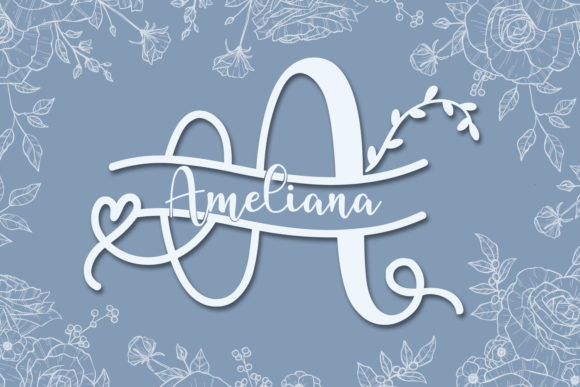
Unleash the Allure of Ameliana Monogram: A Font Symphony for Love and Beauty
In the realm of typography, where words dance upon the digital canvas, there exists a font that embodies the essence of love and beauty, capturing hearts with its charming strokes and delicate allure - Ameliana Monogram. Step into a world of elegance and grace, where this decorative font paints a picture of romance and heartfelt emotions.
Crafted with meticulous attention to detail, Ameliana Monogram dances across your screen like a ballerina, its curves and flourishes evoking a sense of timeless elegance. Each letter, meticulously designed by niyos.studio, carries a whisper of love, a touch of longing, and a promise of forever.
With its authentic feel, Ameliana Monogram becomes more than just a font; it transforms into an artistic expression of your heartfelt sentiments. Create wedding invitations that exude romance, stationary art that radiates warmth, and social media posts that sparkle with charm. From eye-catching greeting cards to handwritten love letters, let Ameliana Monogram be your faithful companion, guiding your words with grace and eloquence.
Beyond its aesthetic beauty, Ameliana Monogram possesses a versatility that knows no bounds. Whether you're a creative professional seeking to add a touch of elegance to your designs or a hopeless romantic desiring a font that speaks to your heart, Ameliana Monogram stands ready to fulfill your every need. Its delicate strokes dance effortlessly across logos and branding, capturing the essence of your brand with a timeless charm.
In the digital realm, where hearts connect through pixels and screens, Ameliana Monogram emerges as the perfect font for expressing love and connection. Craft online messages that resonate with warmth and sincerity, let your words carry the weight of your emotions, and feel the distance melt away as your words touch the hearts of your loved ones.
With Ameliana Monogram, the boundaries of creativity dissolve, making way for an endless symphony of artistic expression. Embark on a journey of love, beauty, and limitless possibilities. Allow Ameliana Monogram to be your muse, your guiding light, as you create designs that speak to the soul and leave an everlasting impression.